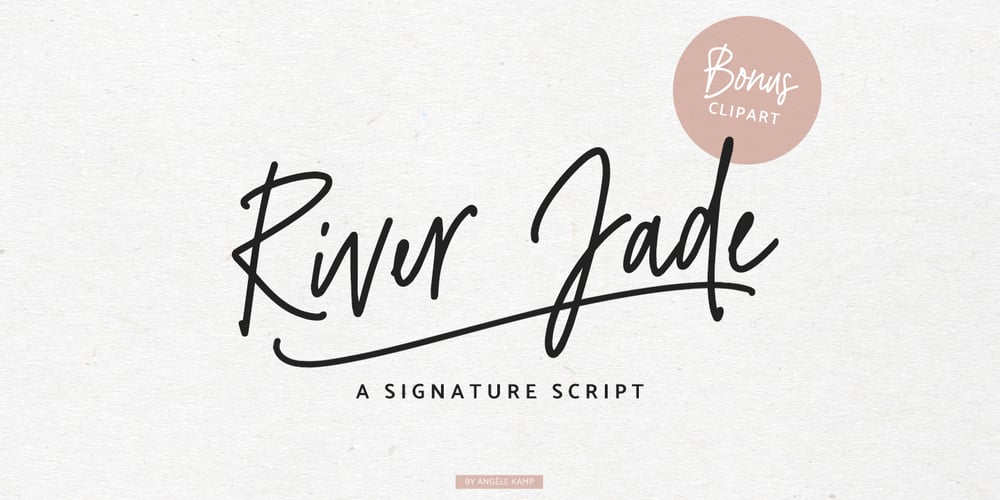
River Jade
River Jade font
River Jade Font Family was designed by Angele Kamp and published by Angele Kamp. River Jade contains 2 styles and family package options. River Jade a fresh signature font with lots of ligatures for that handwritten feel. And it comes with bonus clipart which will make designing so much easier and fun.